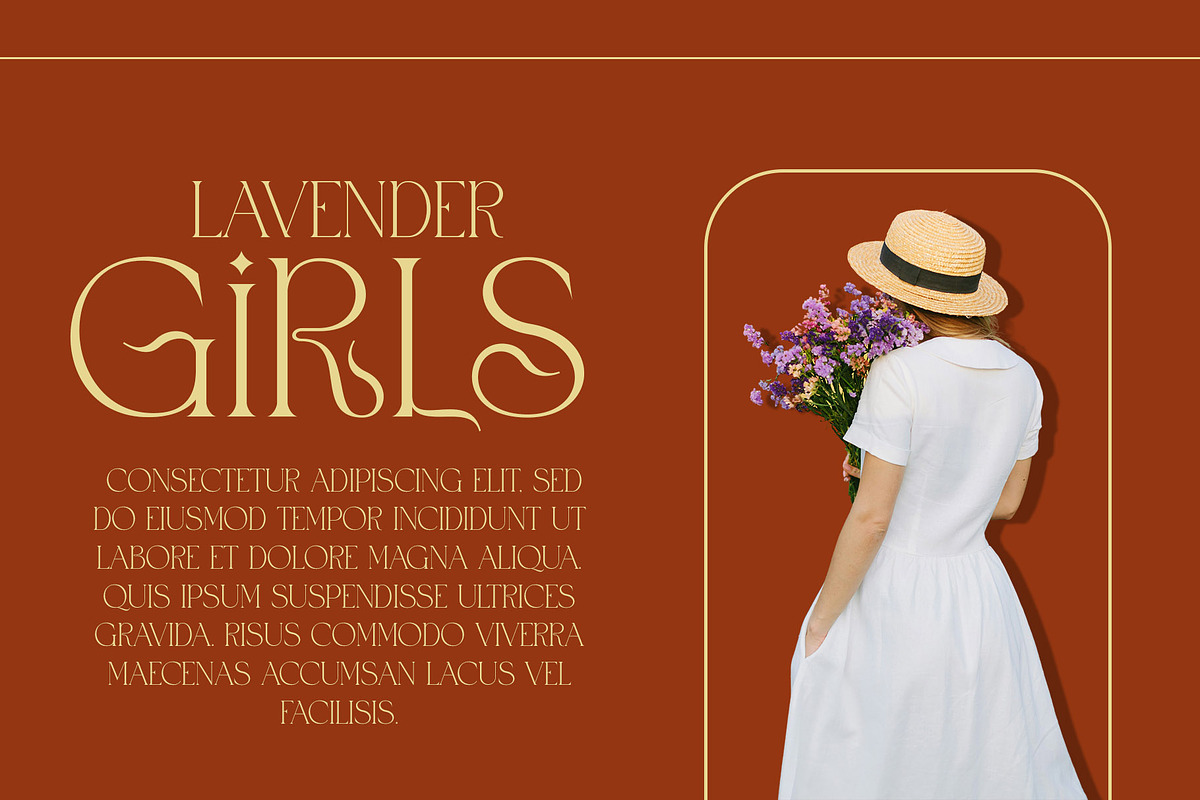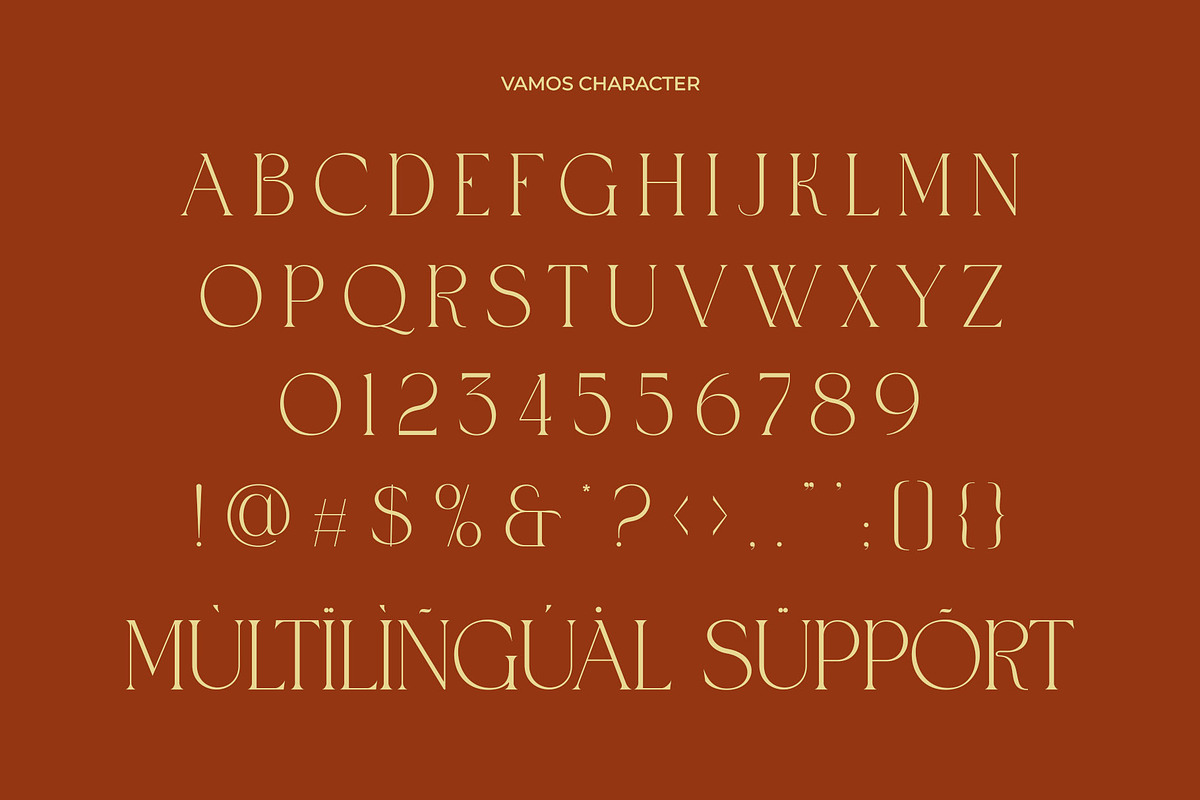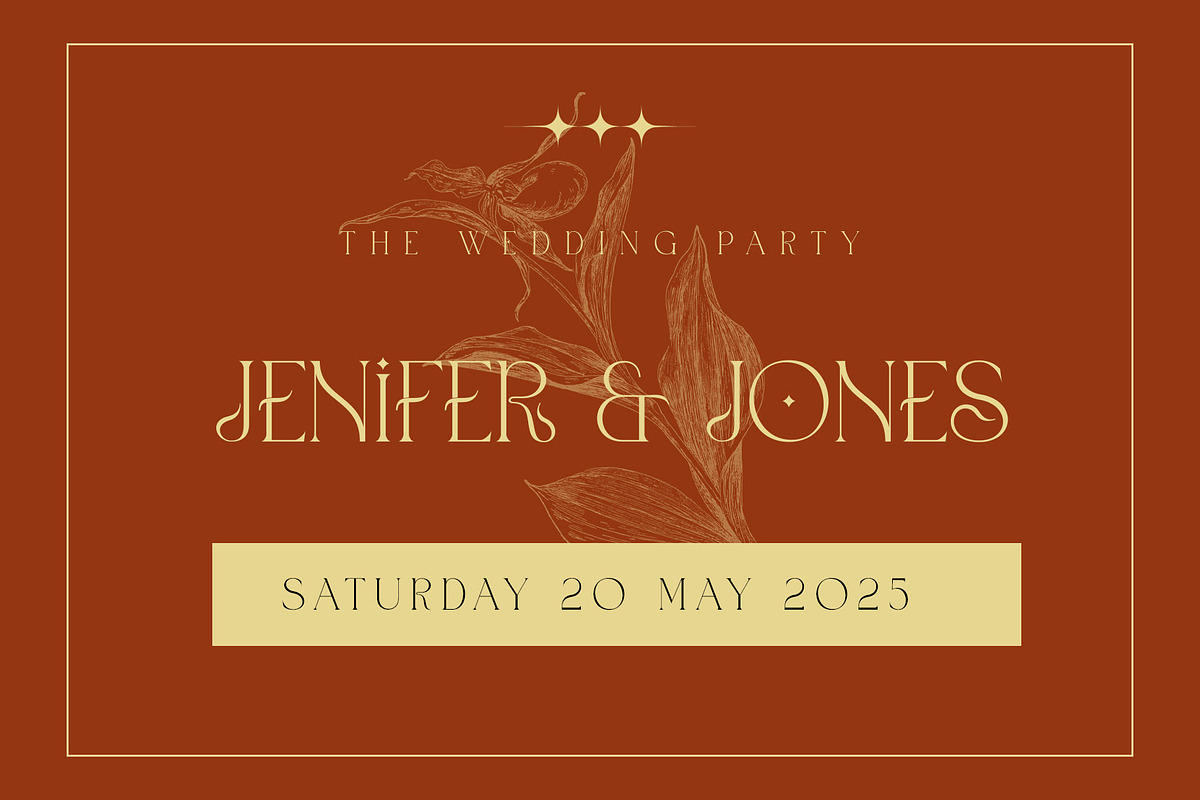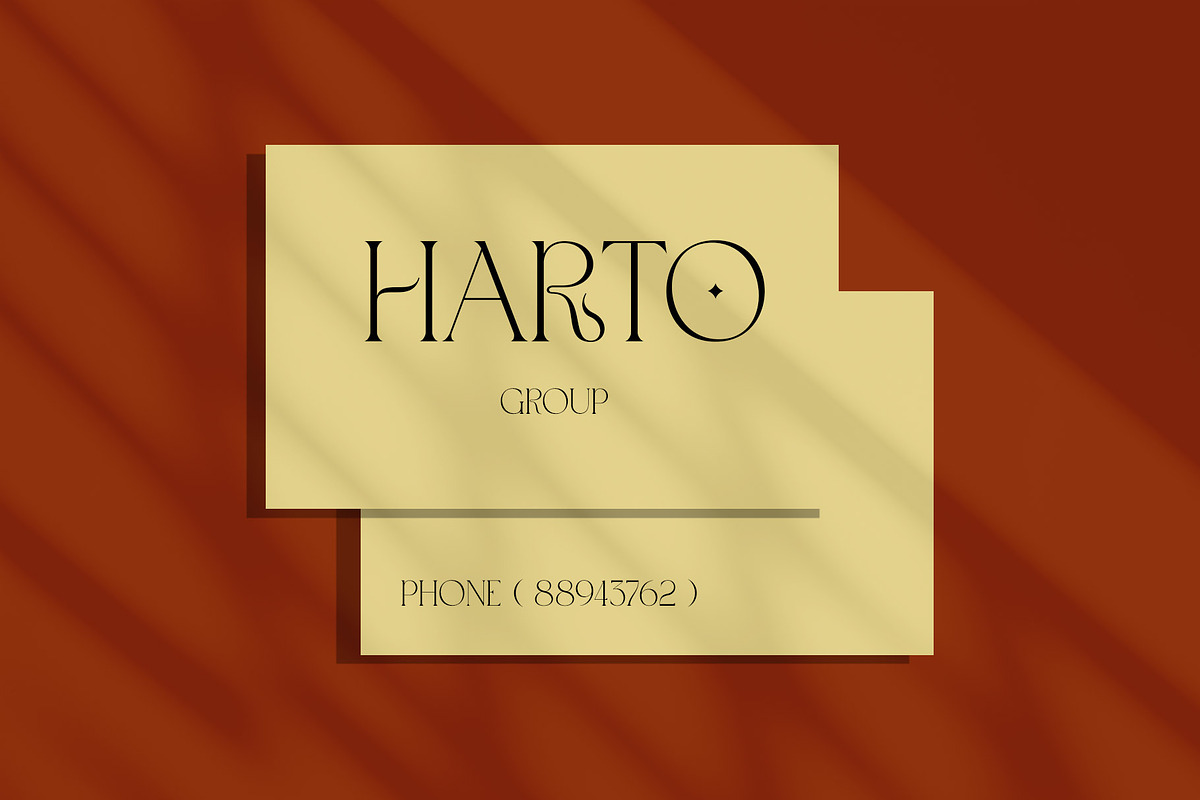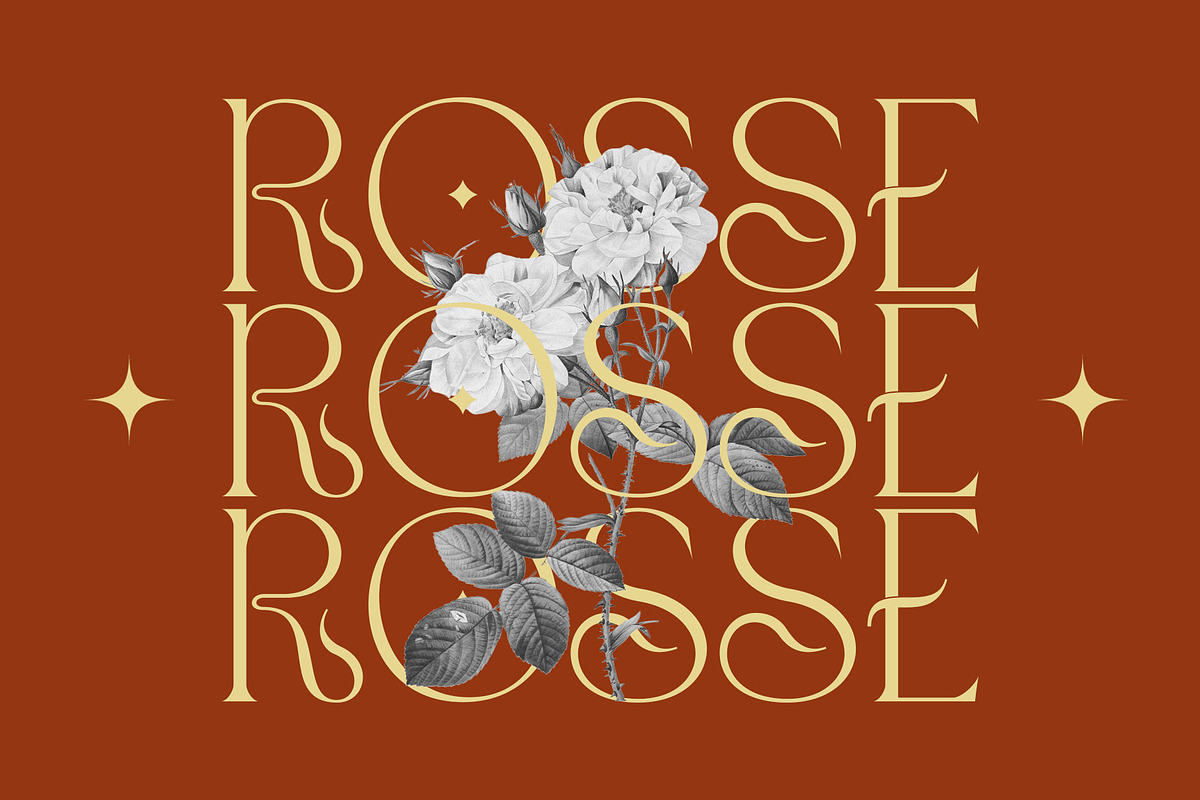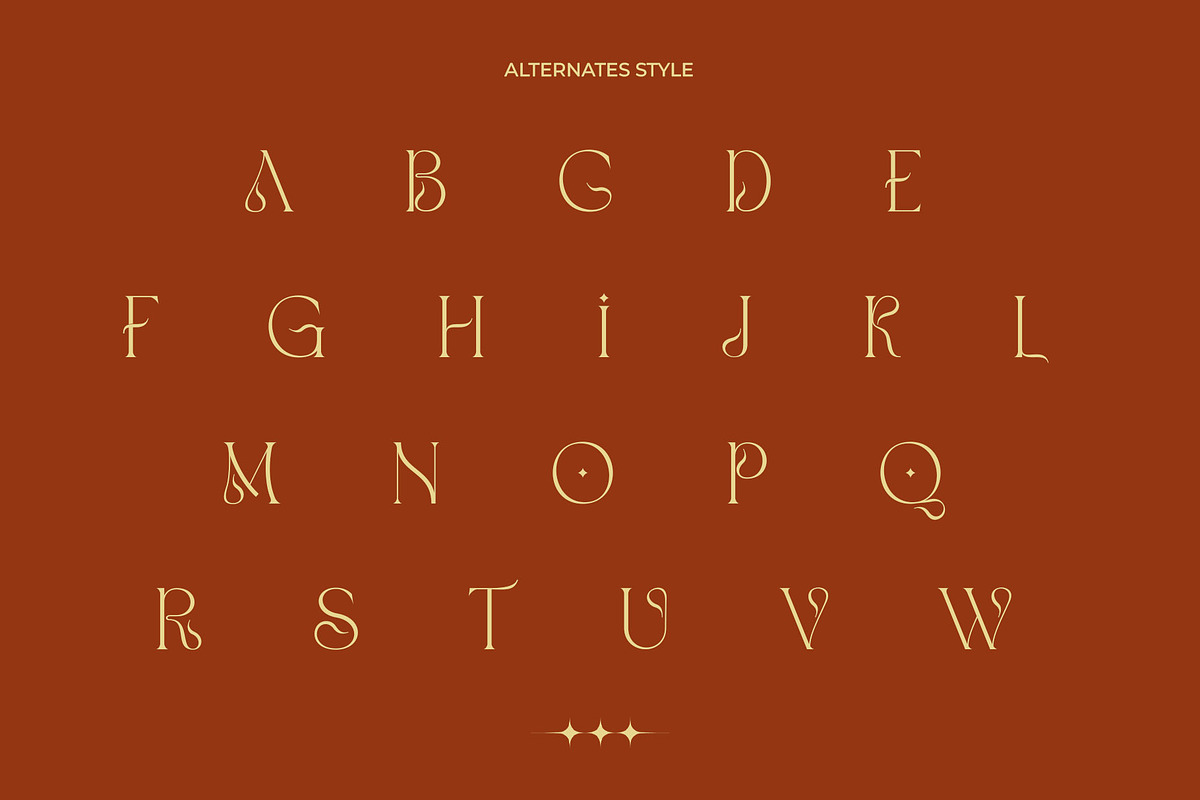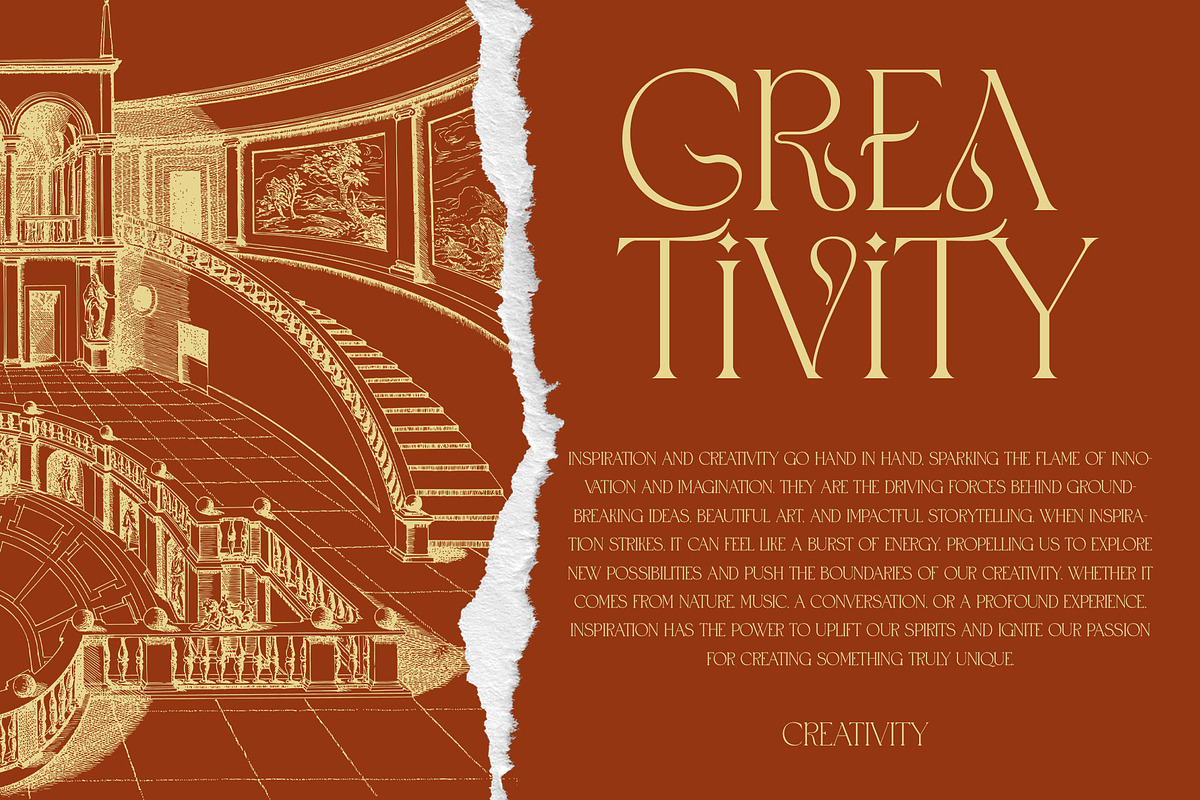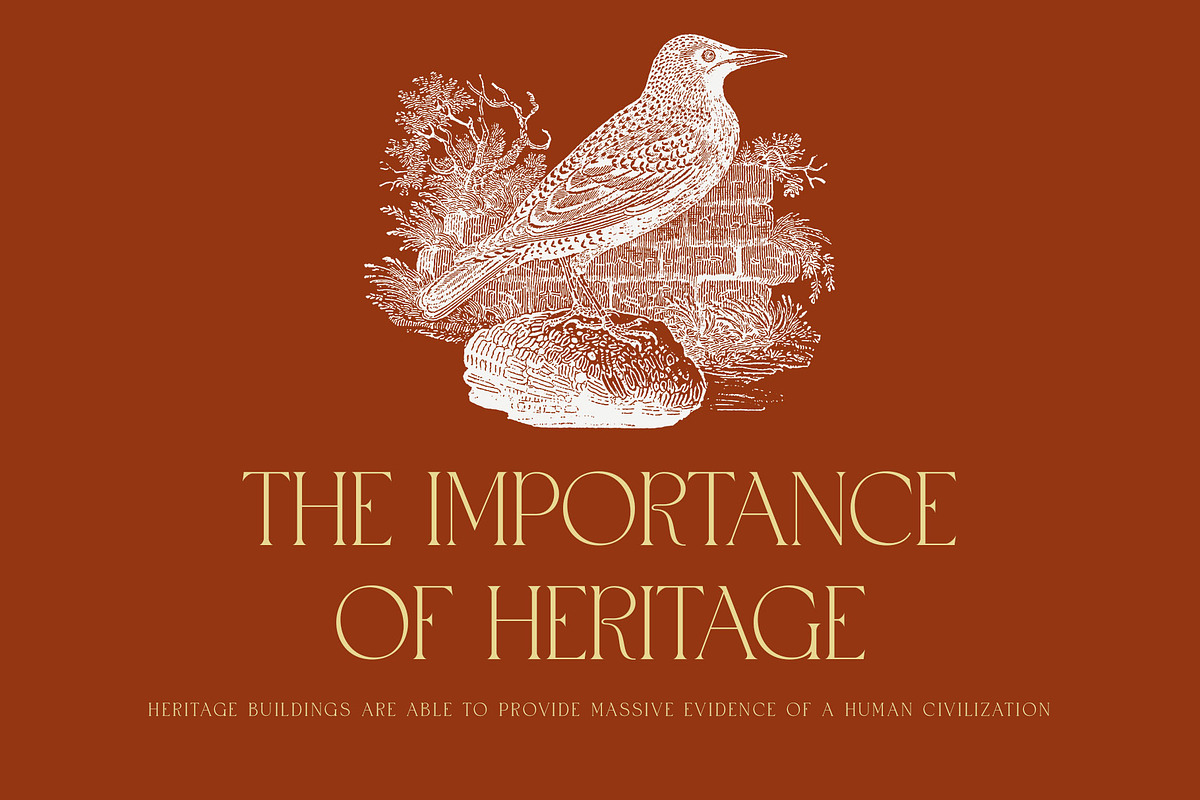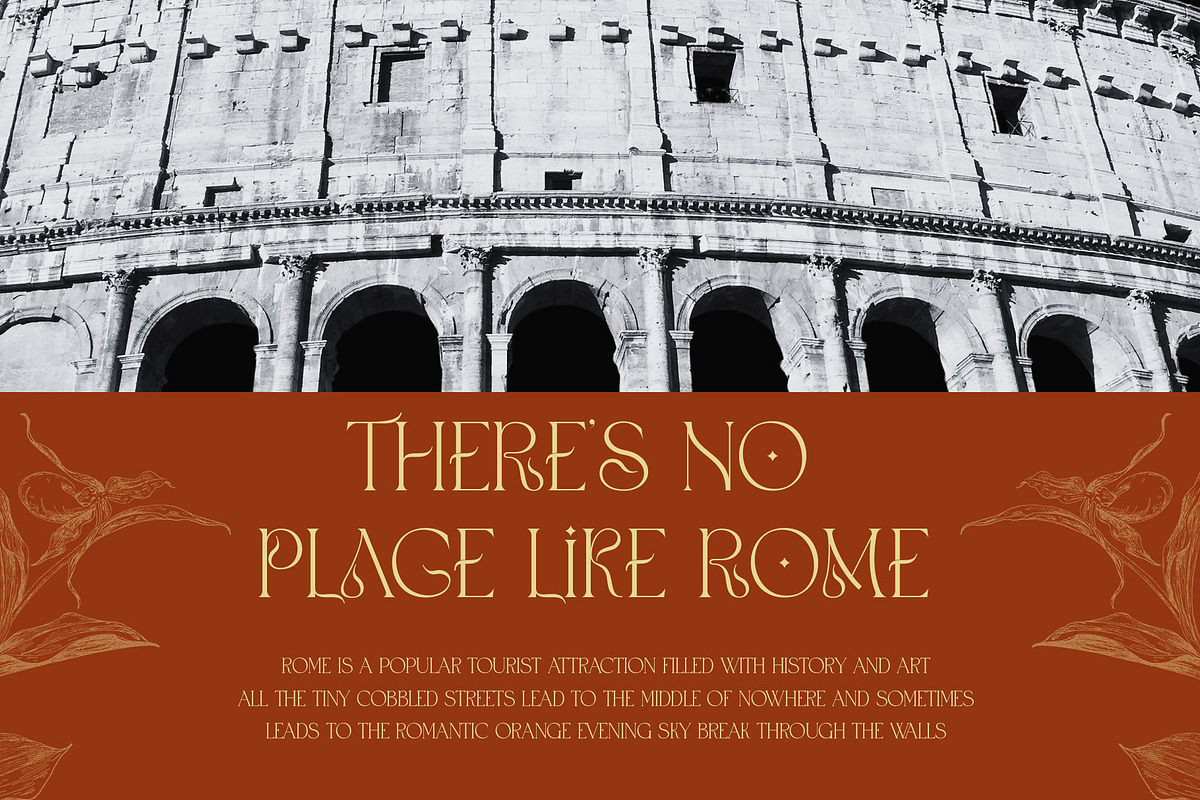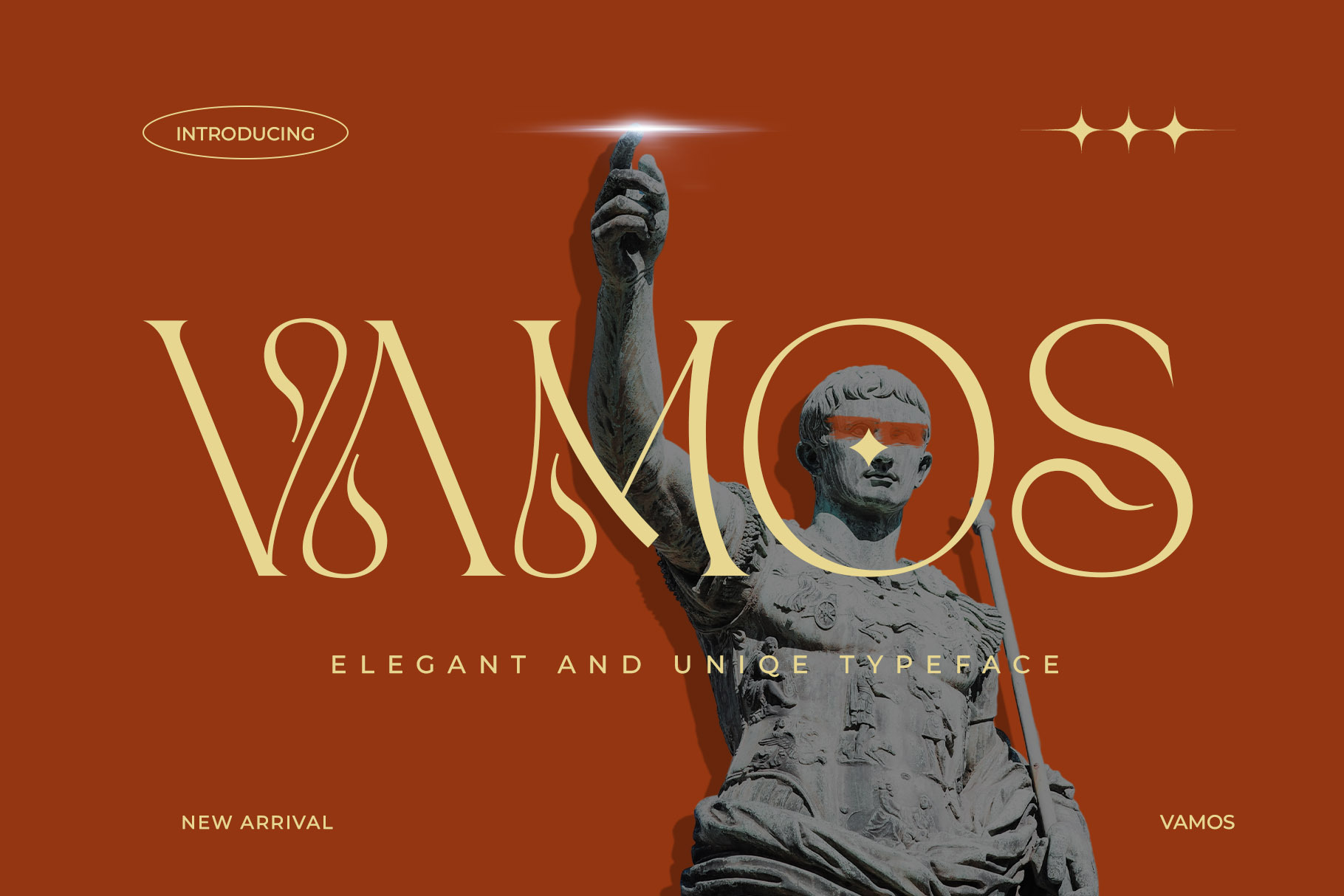
Vamos Unique Serif Typeface
Vamos is a serif typeface that blends classic elegance with a modern, bold twist. Designed with refined details and uniquely crafted letterforms, Vamos brings a strong yet stylish presence to any design. It’s a versatile choice, perfect for branding, editorial layouts, posters, logos, and packaging that demand a striking and sophisticated visual identity.
With its sharp serifs and eye-catching curves, Vamos adds a creative edge without sacrificing readability. This font is ideal for designers looking to make a statement—professional, artistic, and slightly unconventional.